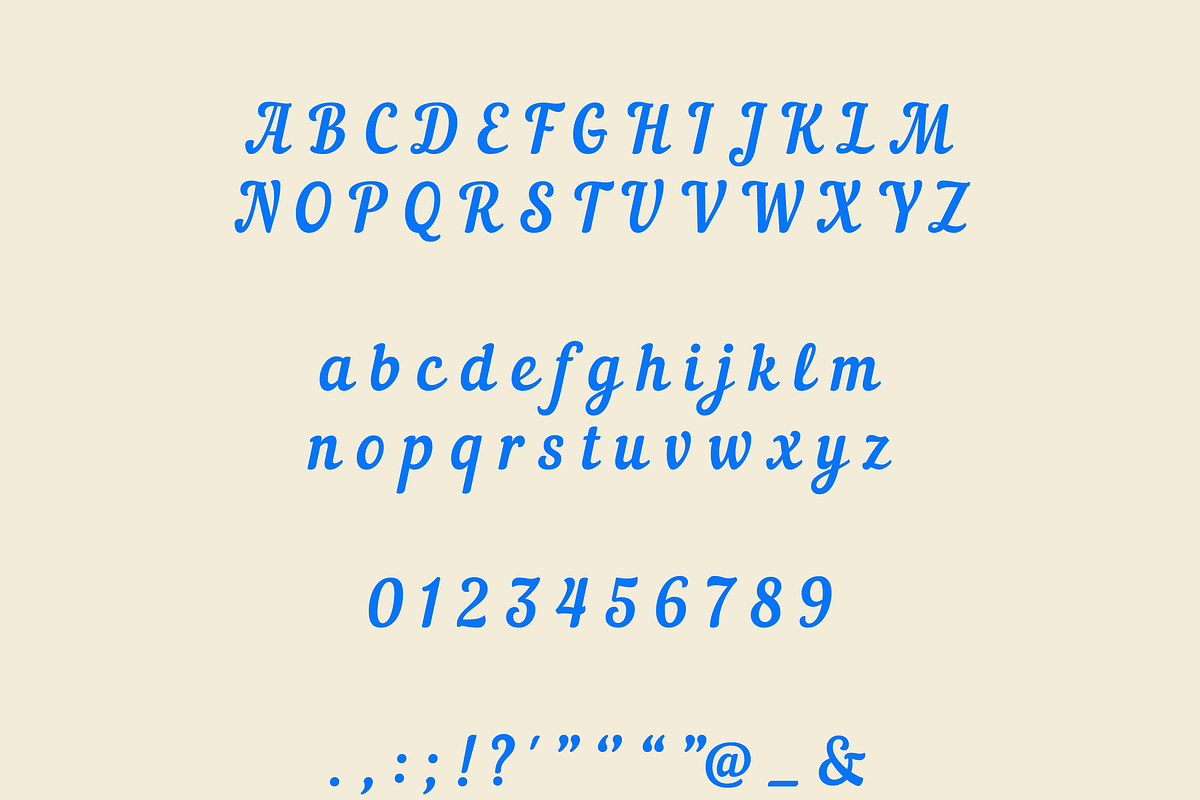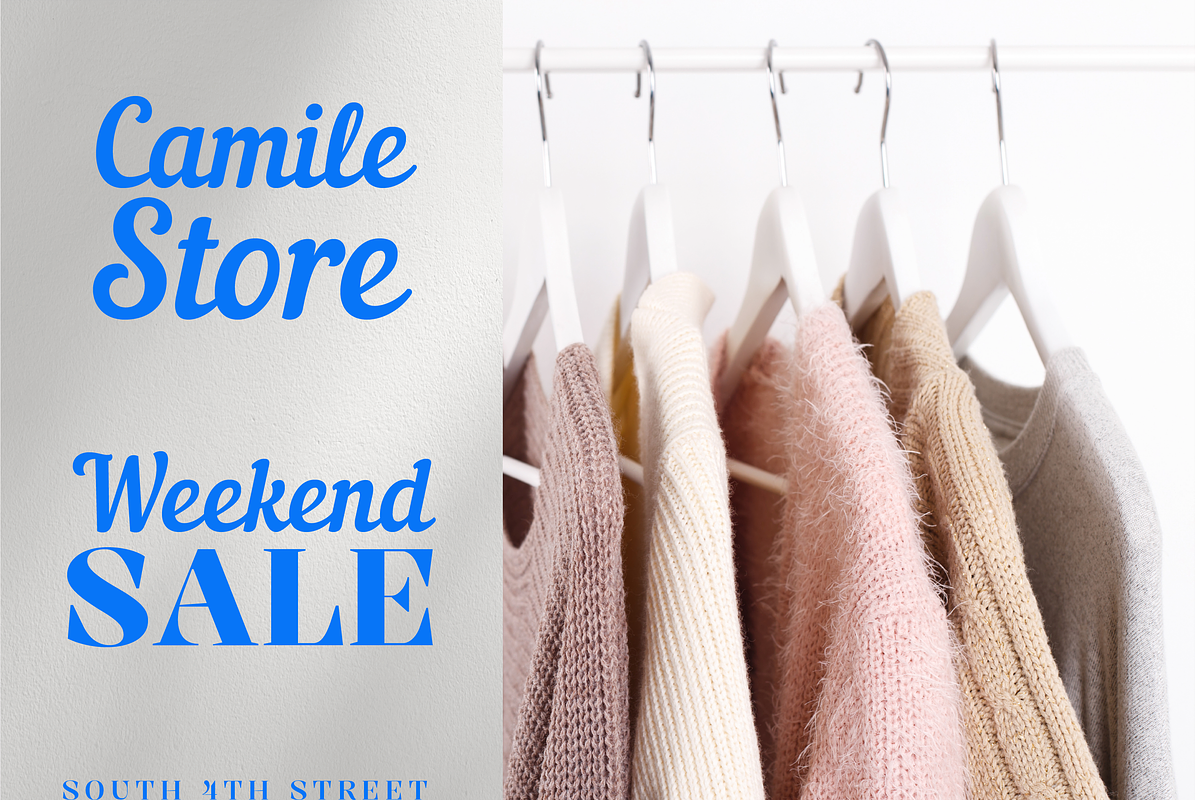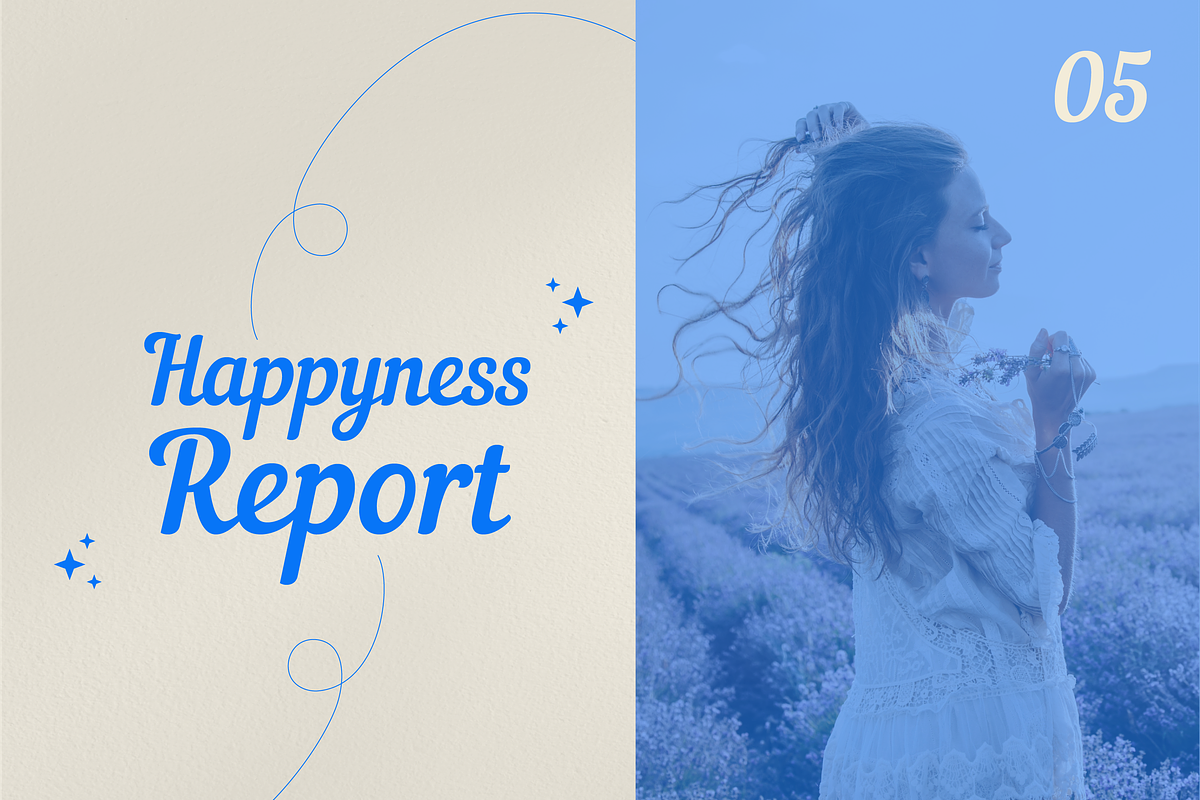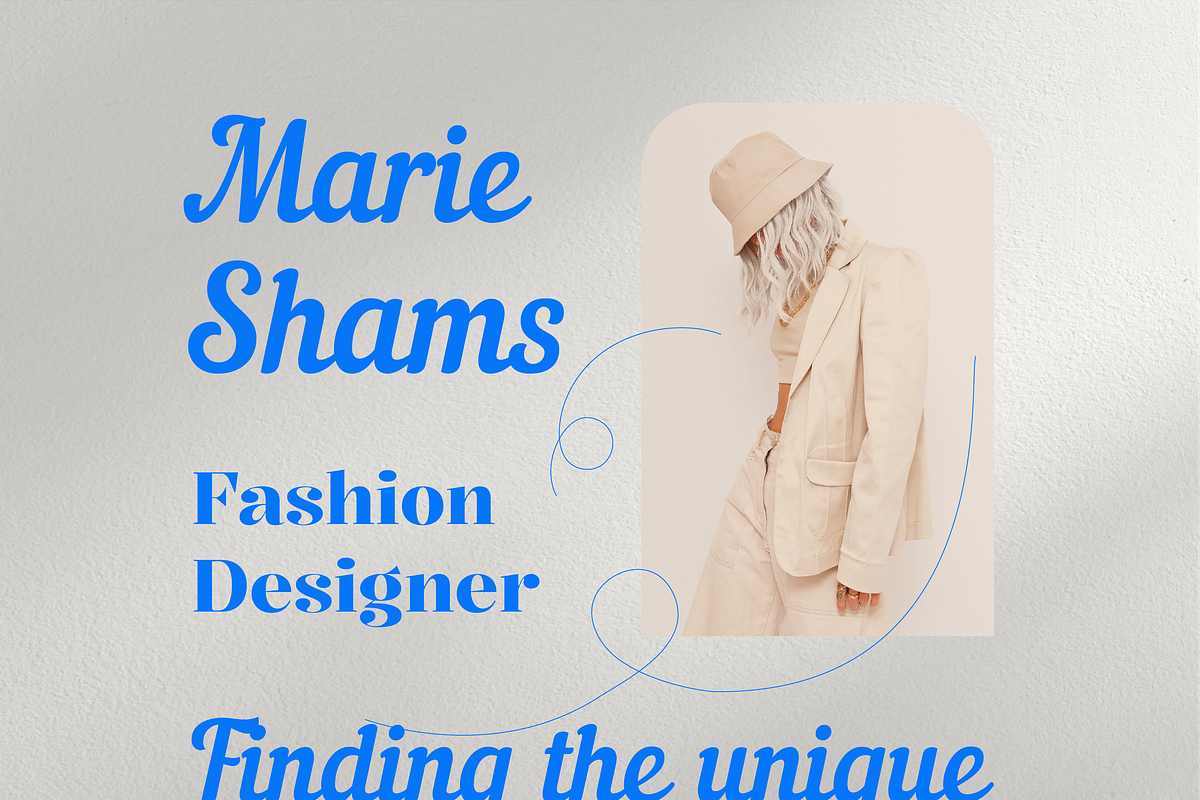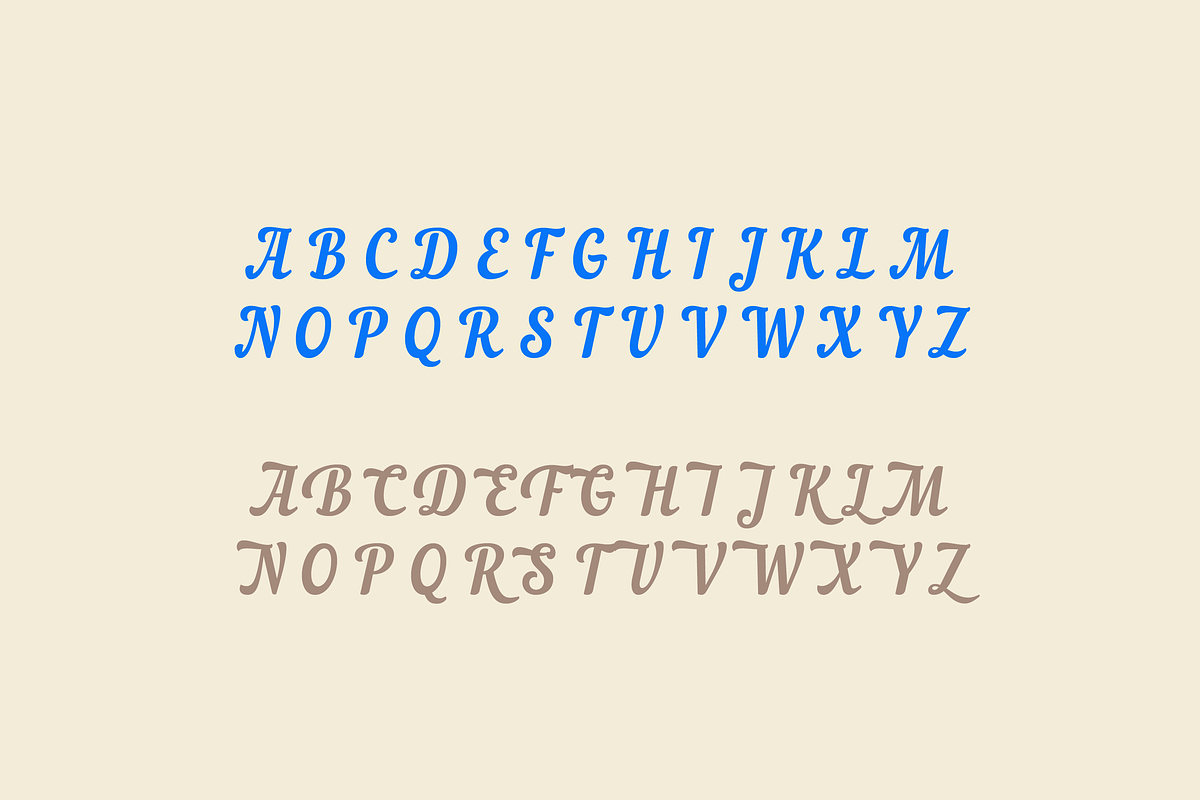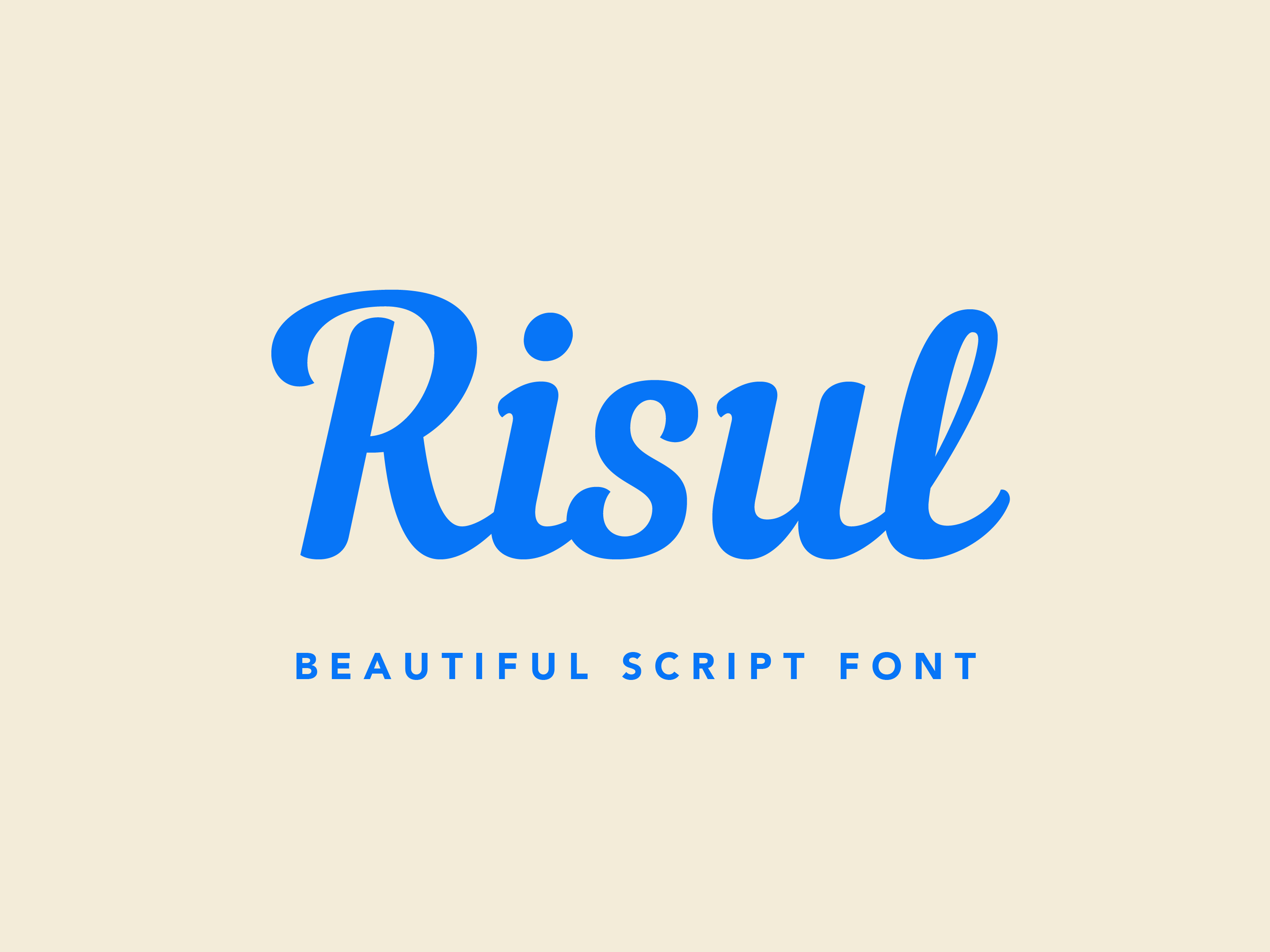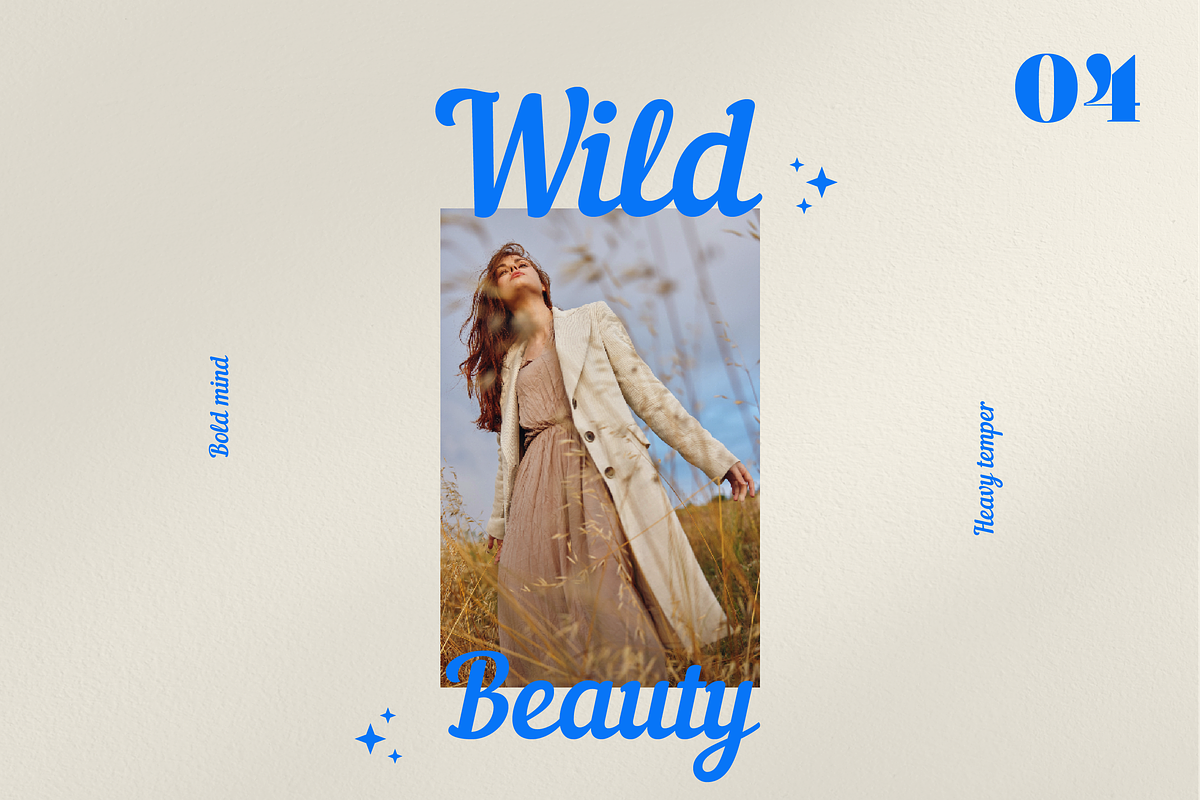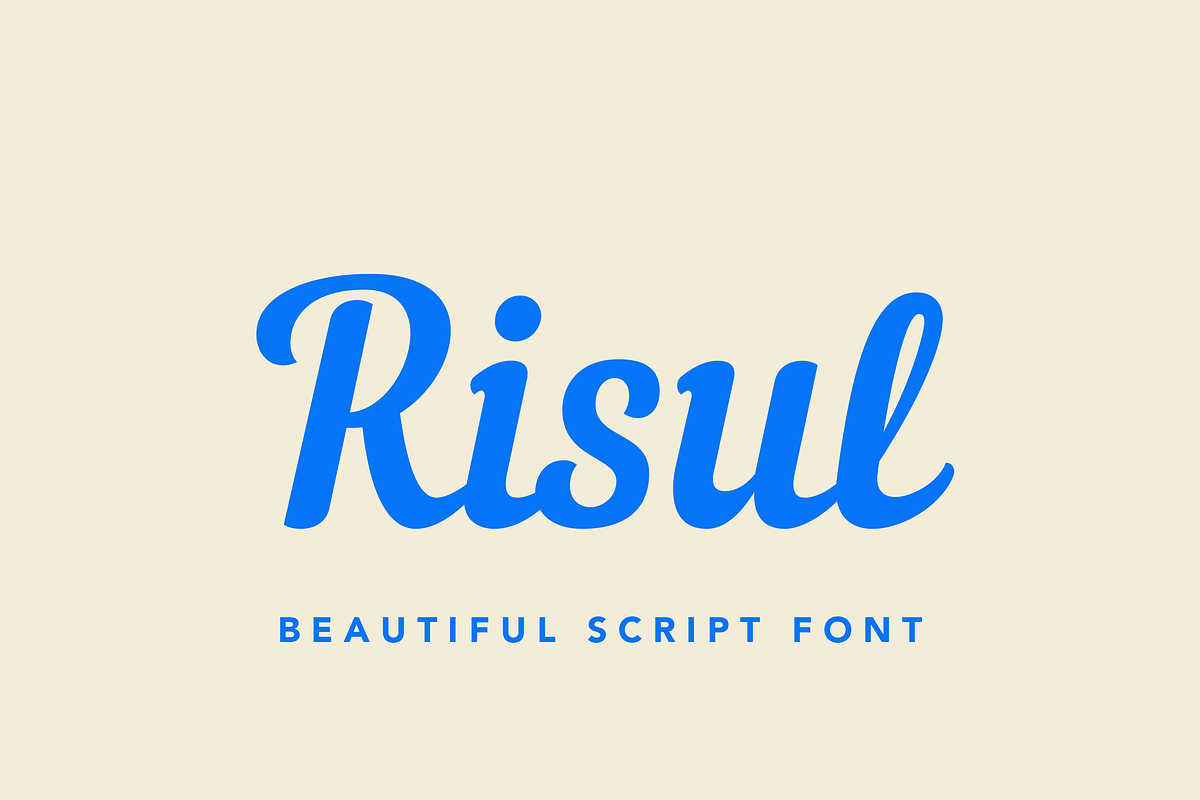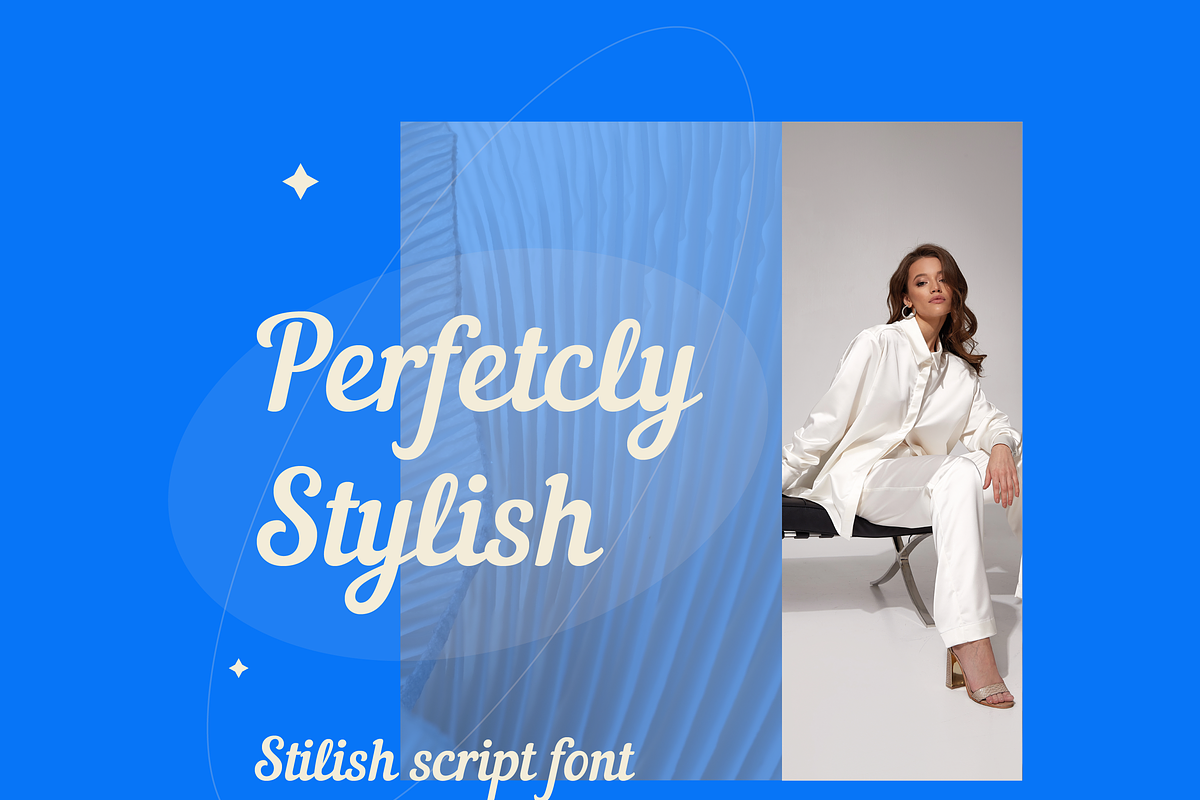
Risul Script Font
Risul – A Modern Script with Vintage Charm
Risul is a modern script font that combines smooth contrasts with a distinctive vintage vibe, making it an ideal choice for high-impact design projects. Designed for headings, logos, posters, and more, it brings a perfect blend of contemporary elegance and retro flair.